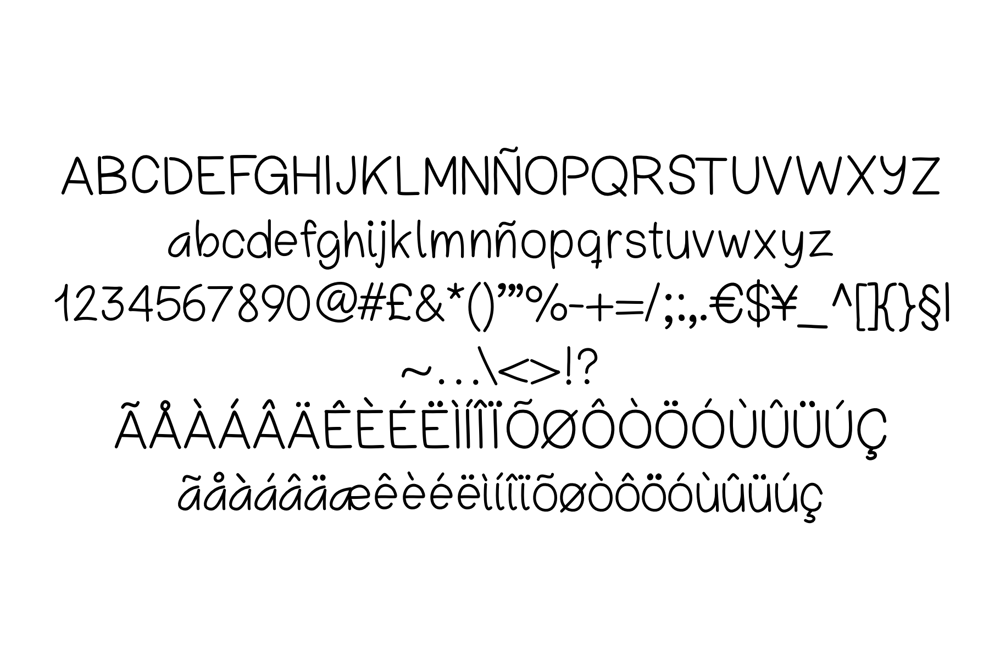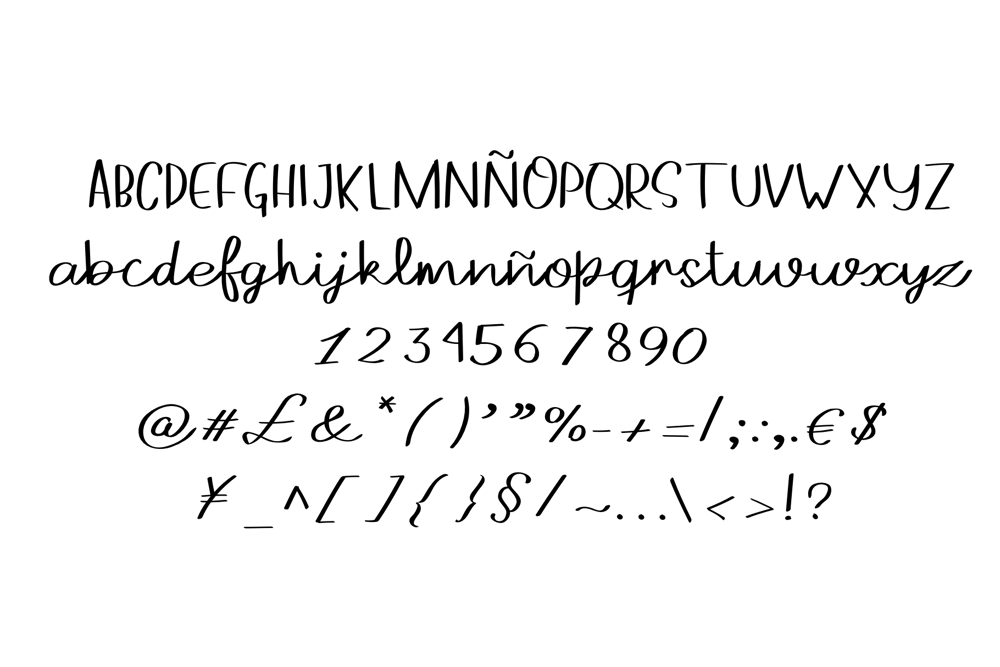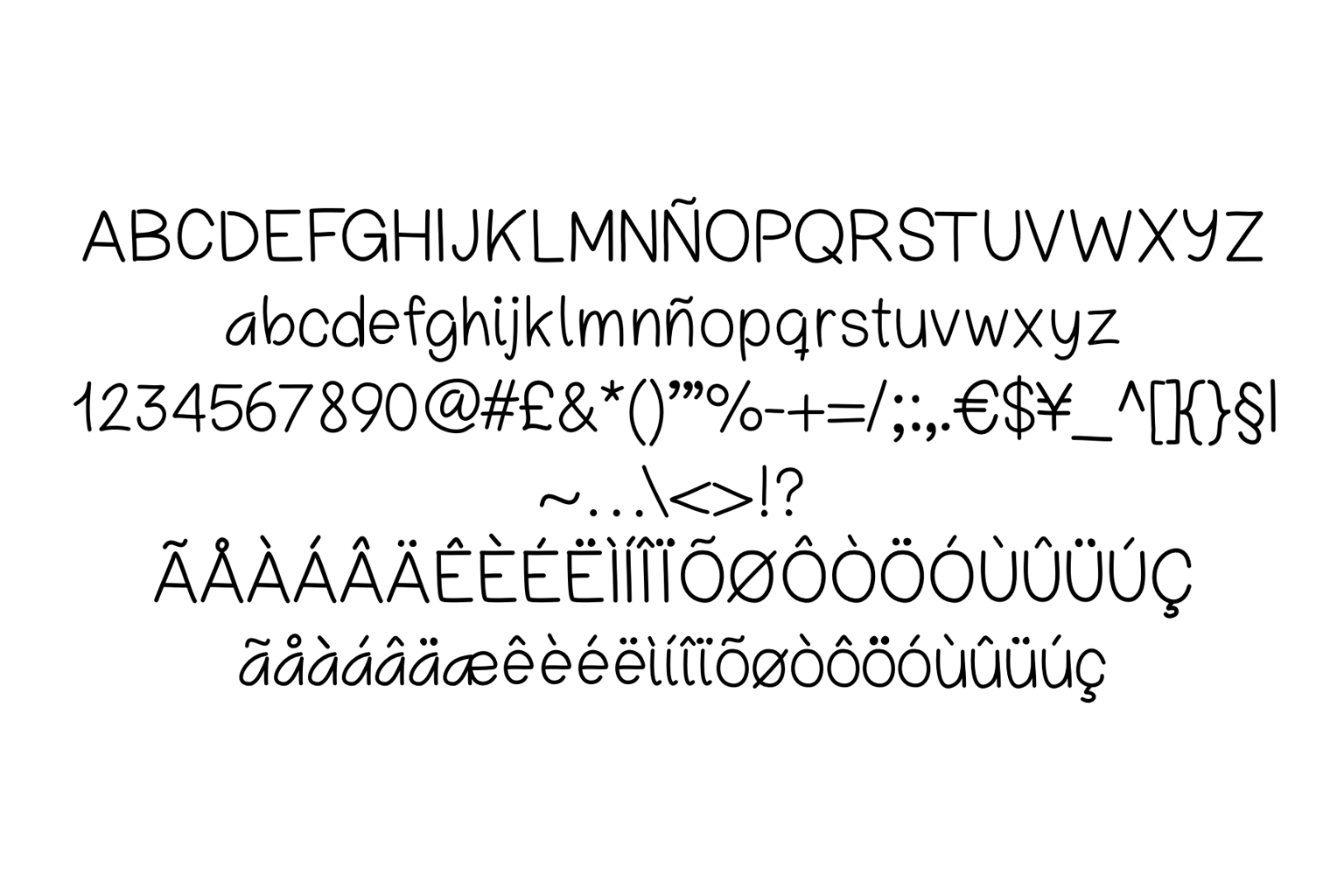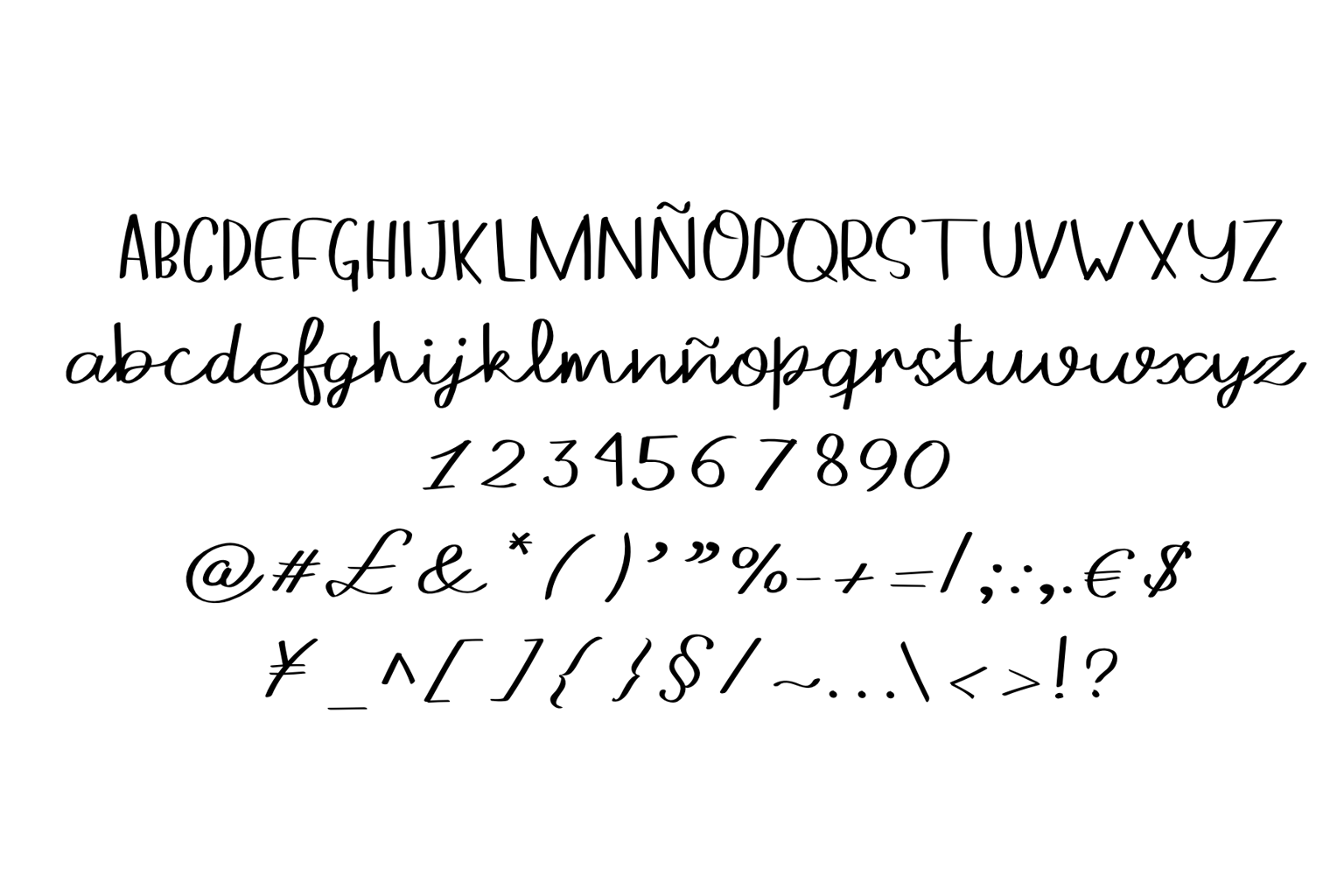
My experiments creating fonts
Such a fun class! I’ve been wanting to make a font for a long time and now I am able to do it. They are not perfect but it’s a start.
Here you can see a simple font:
And my experiment to create a hand drawn script font. This one was more challenging and I had to do a lot of tweaking to link them: